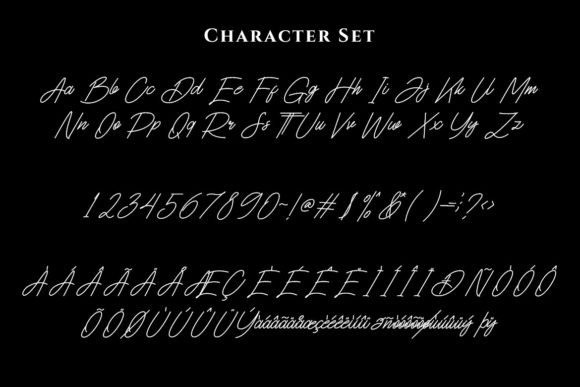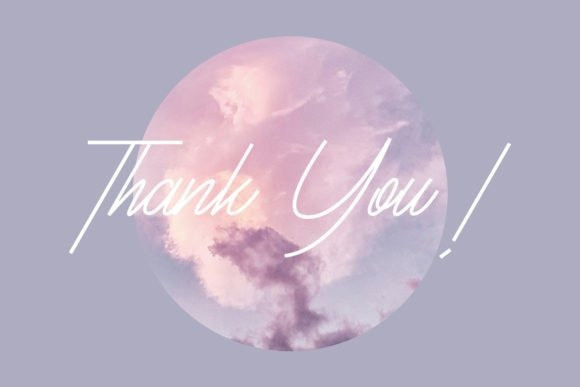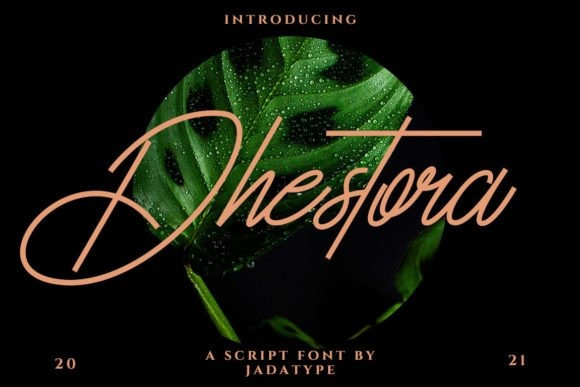
Dhestora Script Font
Dhestora is a cursive and elegant handwritten font. It looks beautiful on a variety of designs requiring a personalized style, such as wedding invitations, thank you cards, weddings, greeting cards, logos and so on.